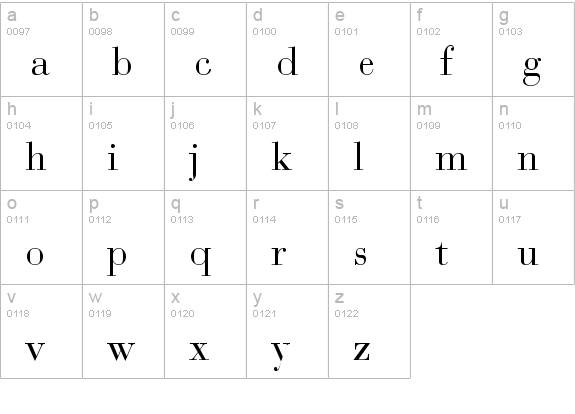
Bauer Bodoni Roman is a timeless and elegant typeface that exudes sophistication and classical beauty. Designed by renowned typographer Giambattista Bodoni, this font features graceful serifs and a perfect balance between thick and thin strokes. Its clean lines and sharp edges make it ideal for conveying a sense of refinement and luxury in any design project. With its rich history and enduring appeal, Bauer Bodoni Roman is a versatile choice for a wide range of applications, from editorial layouts to branding materials. Whether used for headlines or body text, this font commands attention and adds a touch of sophistication to any project. And the best part? Bauer Bodoni Roman is available for free download at FontsMarket.com, making it accessible to designers and creatives looking to elevate their work with a touch of timeless elegance. Don't miss out on the opportunity to enhance your designs with this beautiful and classic typeface.